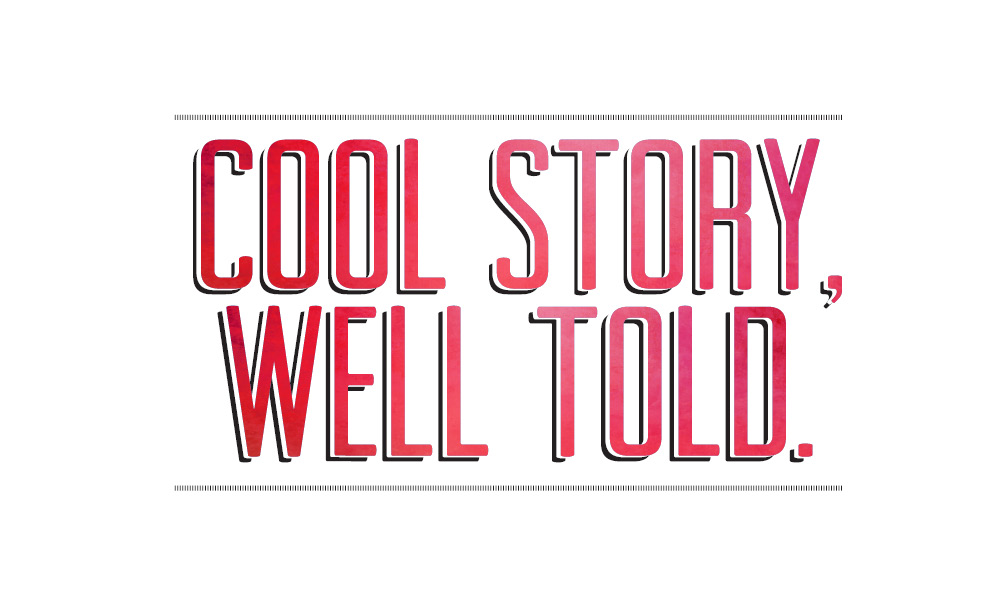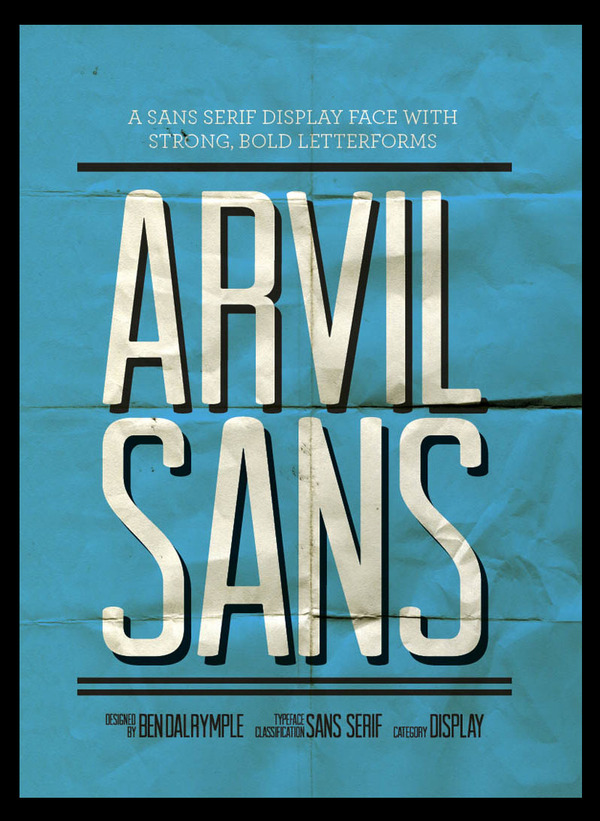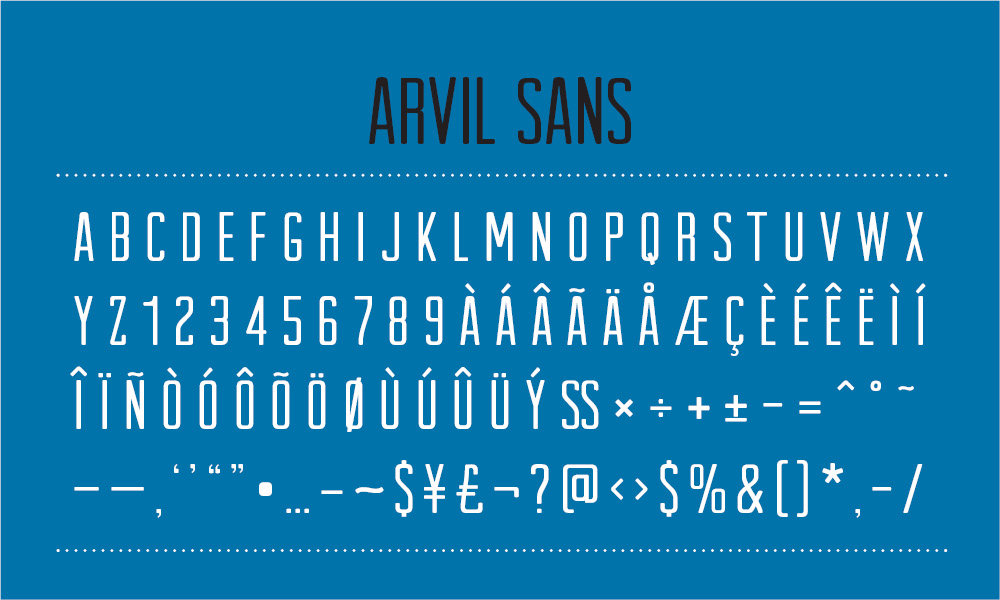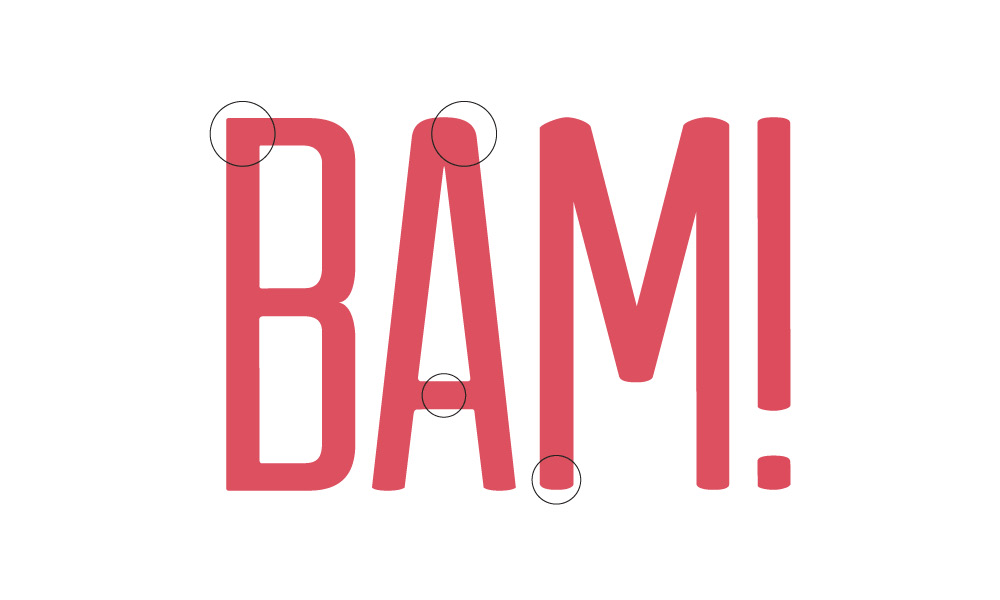
Arvil has strong lines with rounded, soft terminals, to produce a strong, yet friendly letterform.
Available in all caps with numerals, punctuation and also a wide range of symbols, Arvil is versatile and sure to deliver your next message with style.'